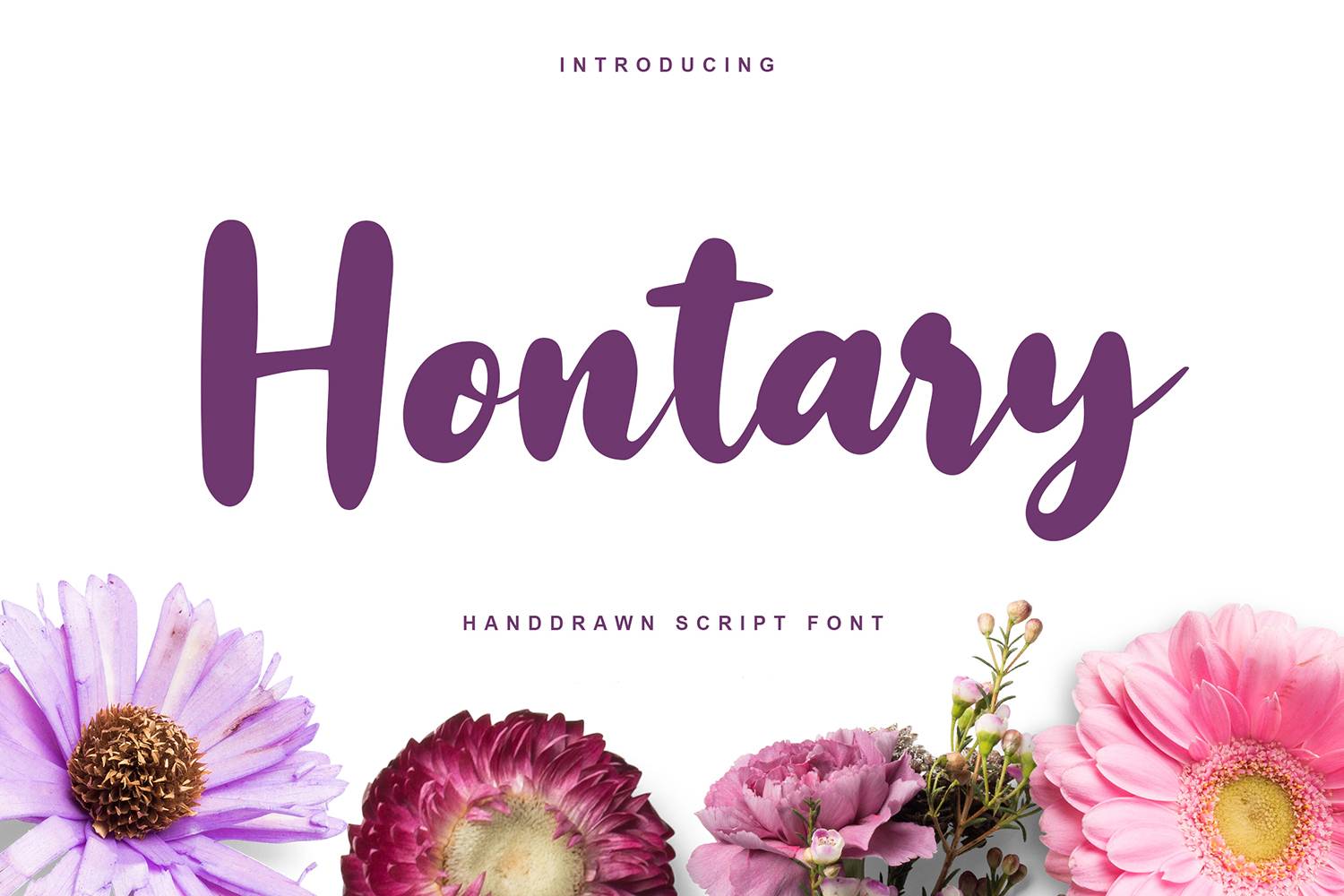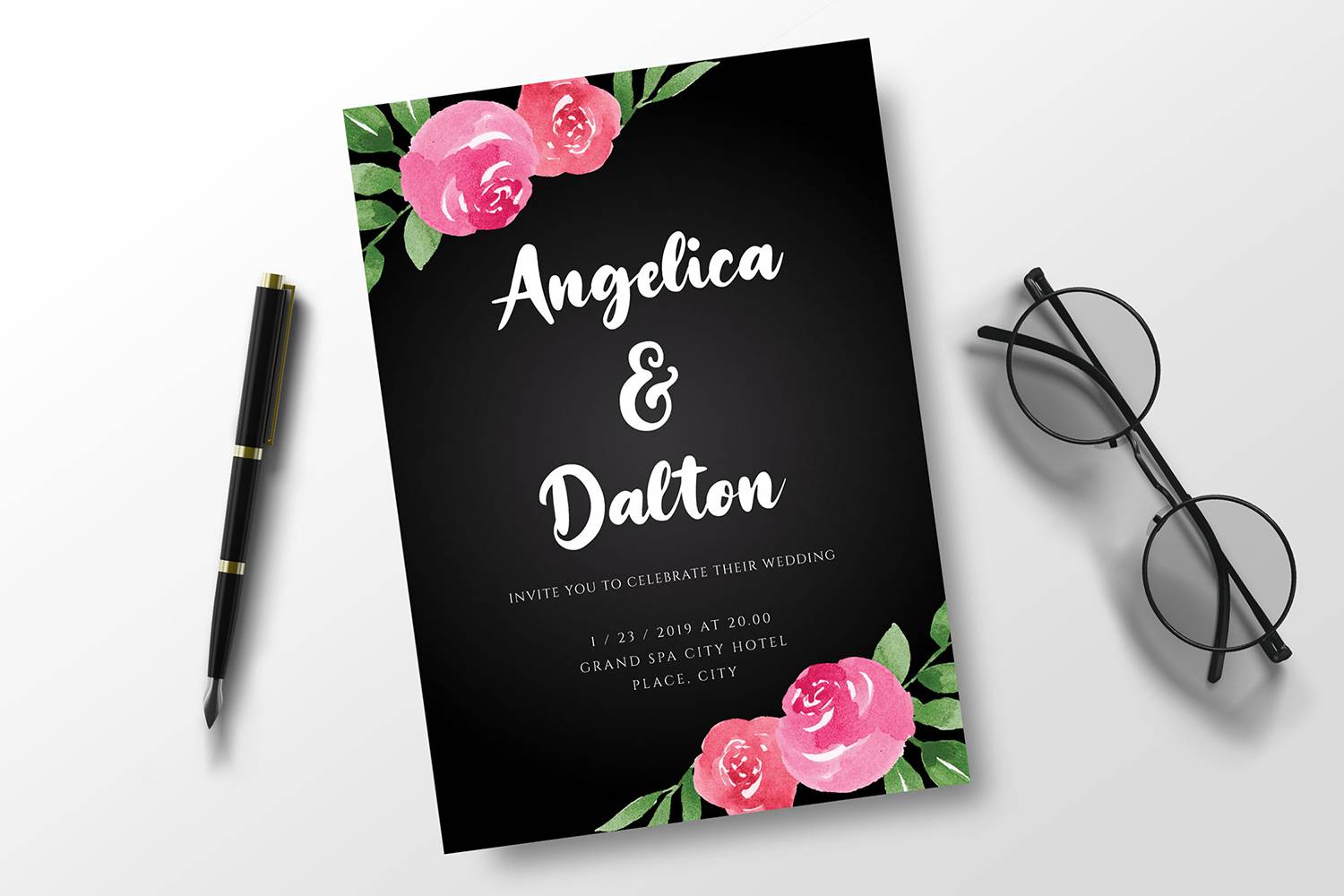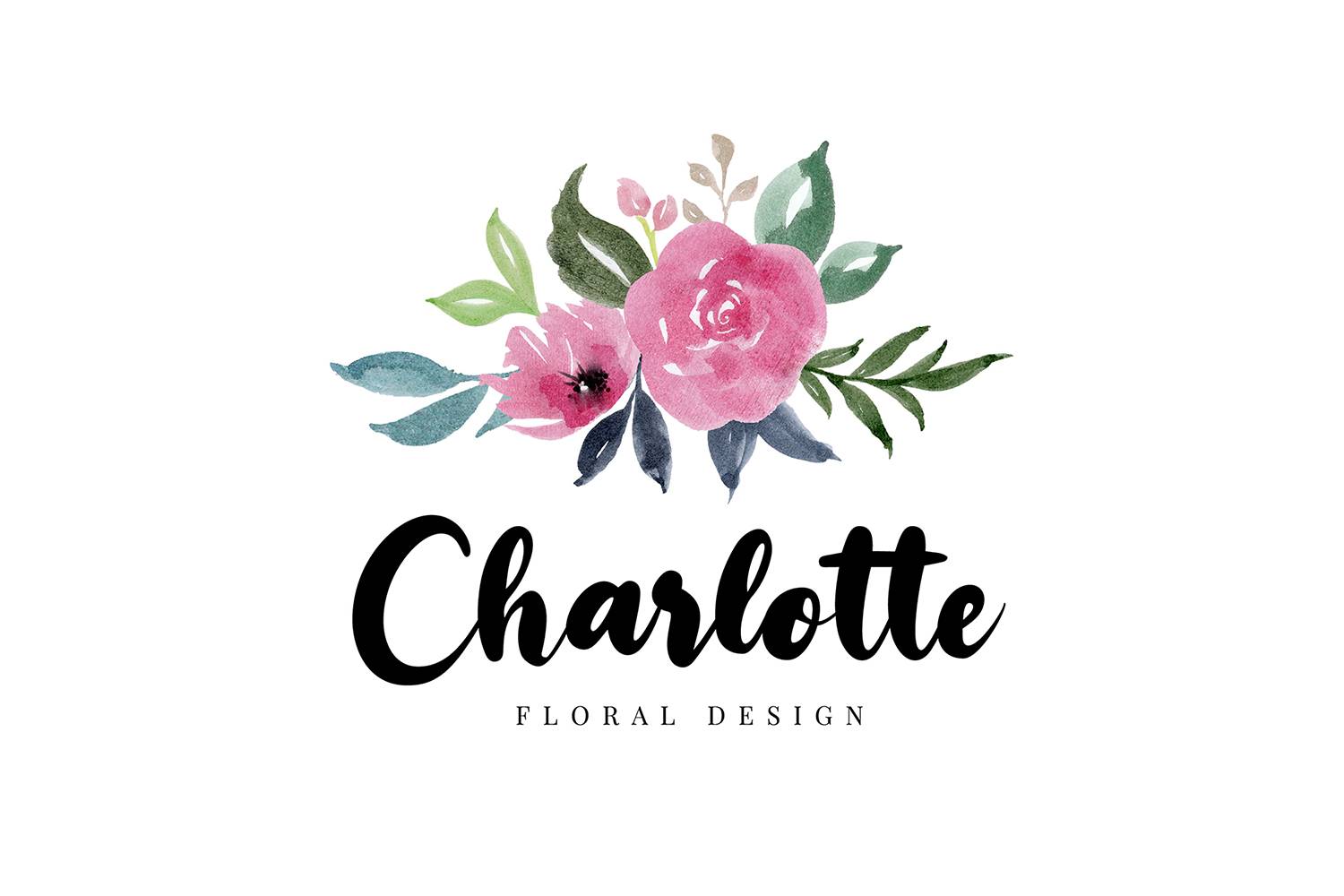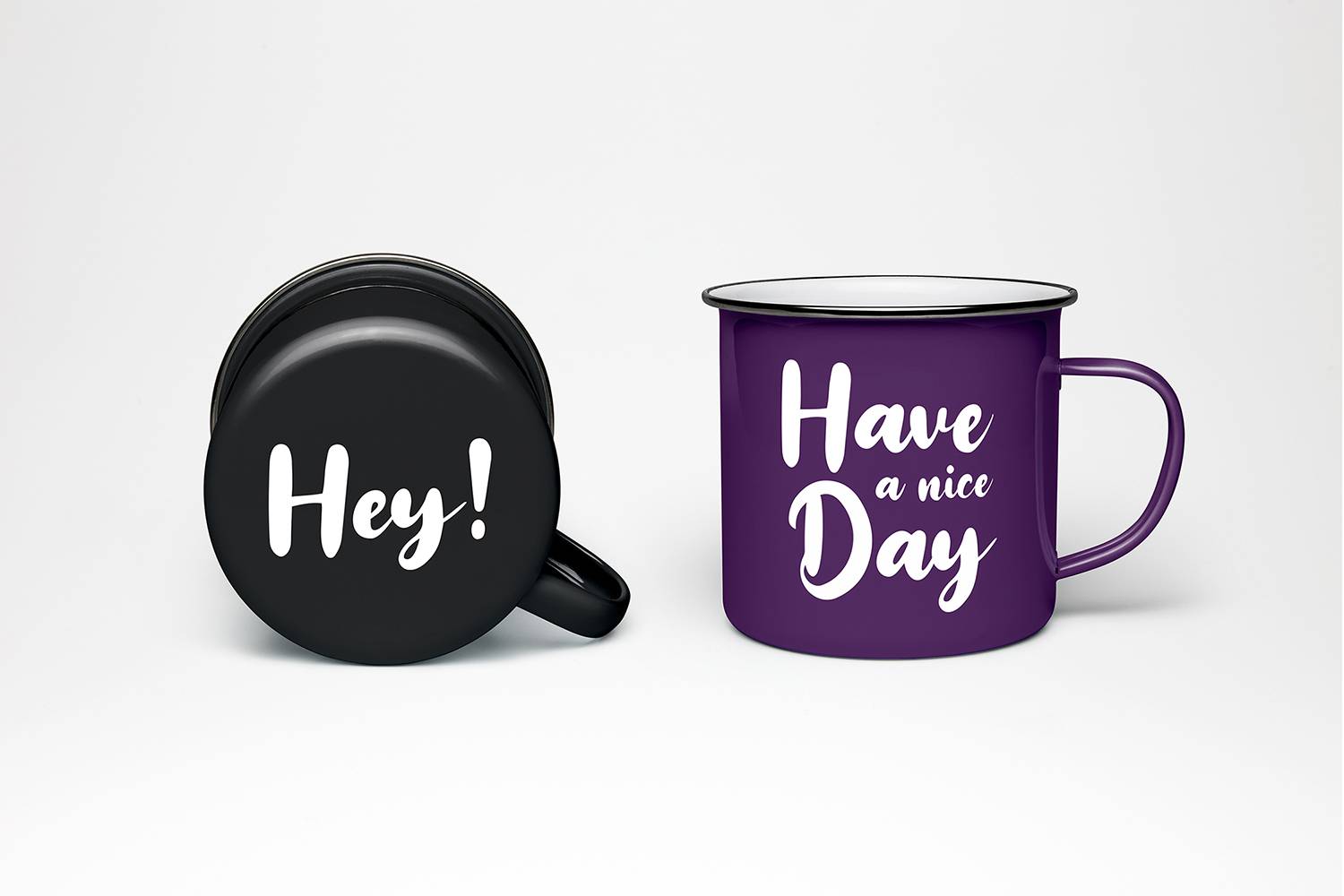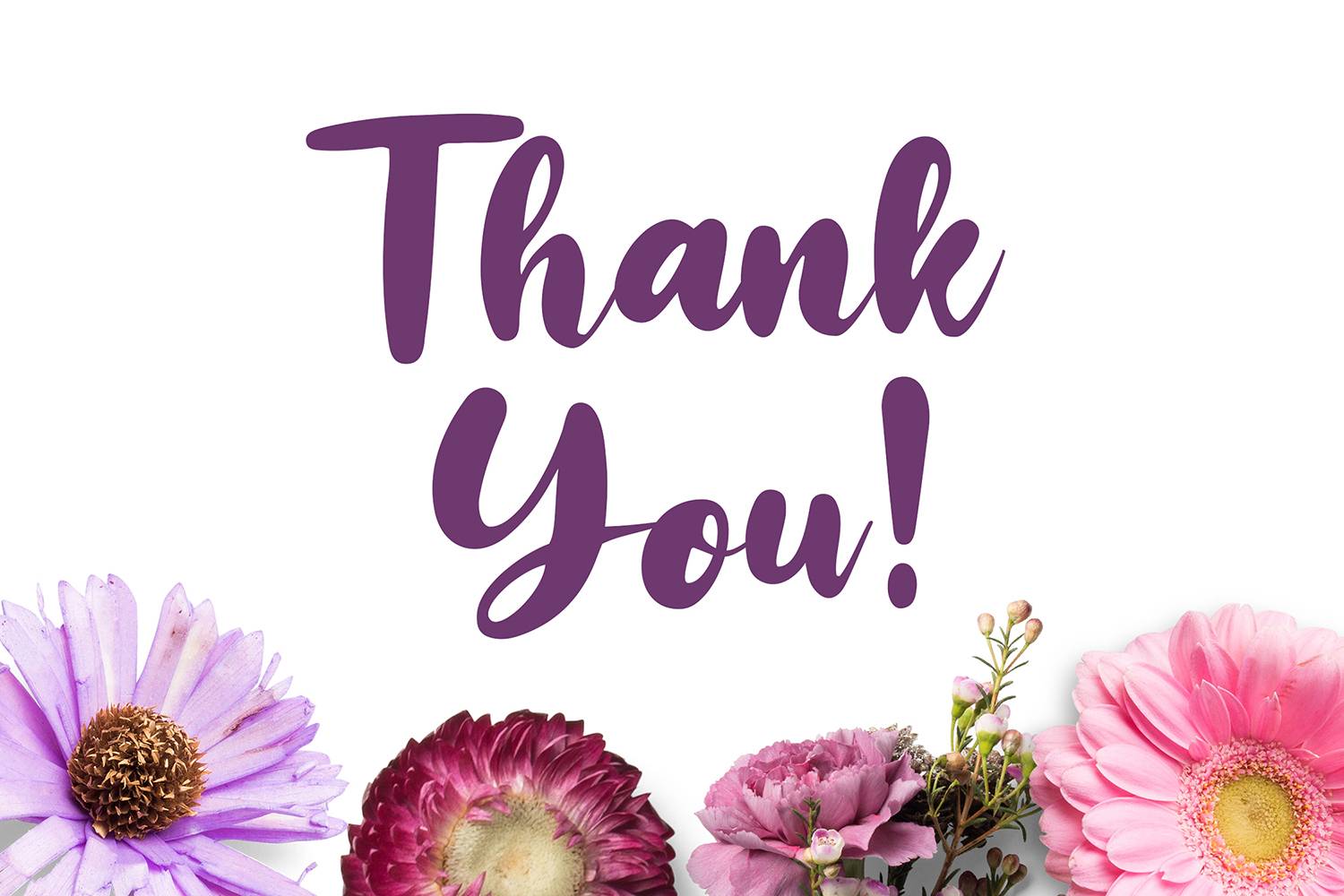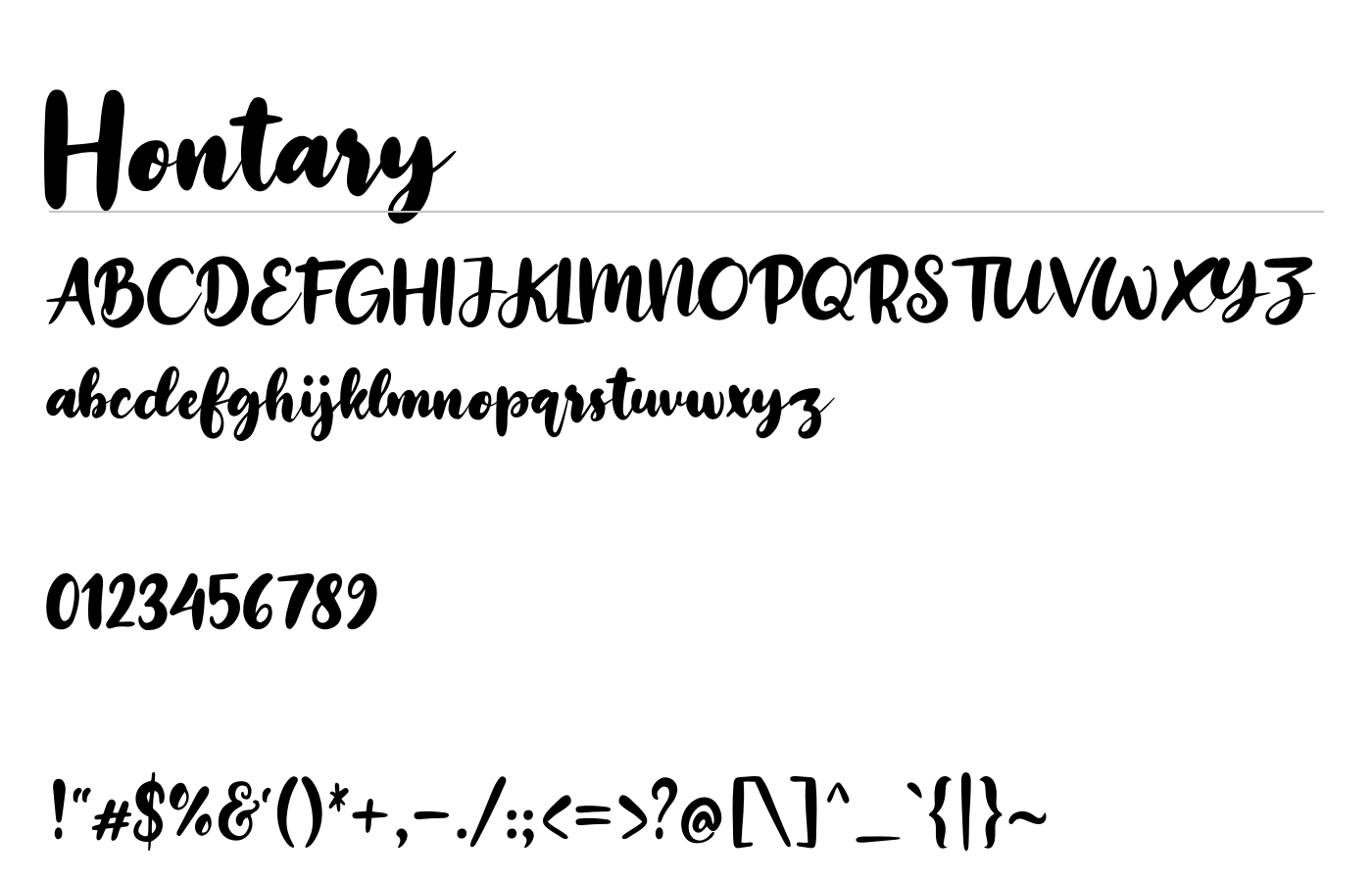
Hontary is a lively script font that combines bold strokes with smooth, flowing curves, creating an energetic yet elegant feel. Its consistent weight and playful letterforms make it ideal for creative branding, informal invitations, and eye-catching headlines where a friendly, approachable style is desired. This font brings a charming, handcrafted touch that works beautifully for projects seeking a modern, casual personality.
Hontary Font
About Hontary Font
| Font family | Hontary Font |
| Release date | 2020-05-27 |
| Designer | Akhmad Reza Fauzi |